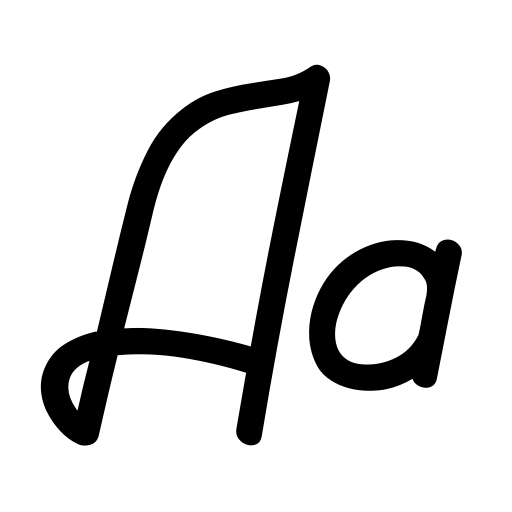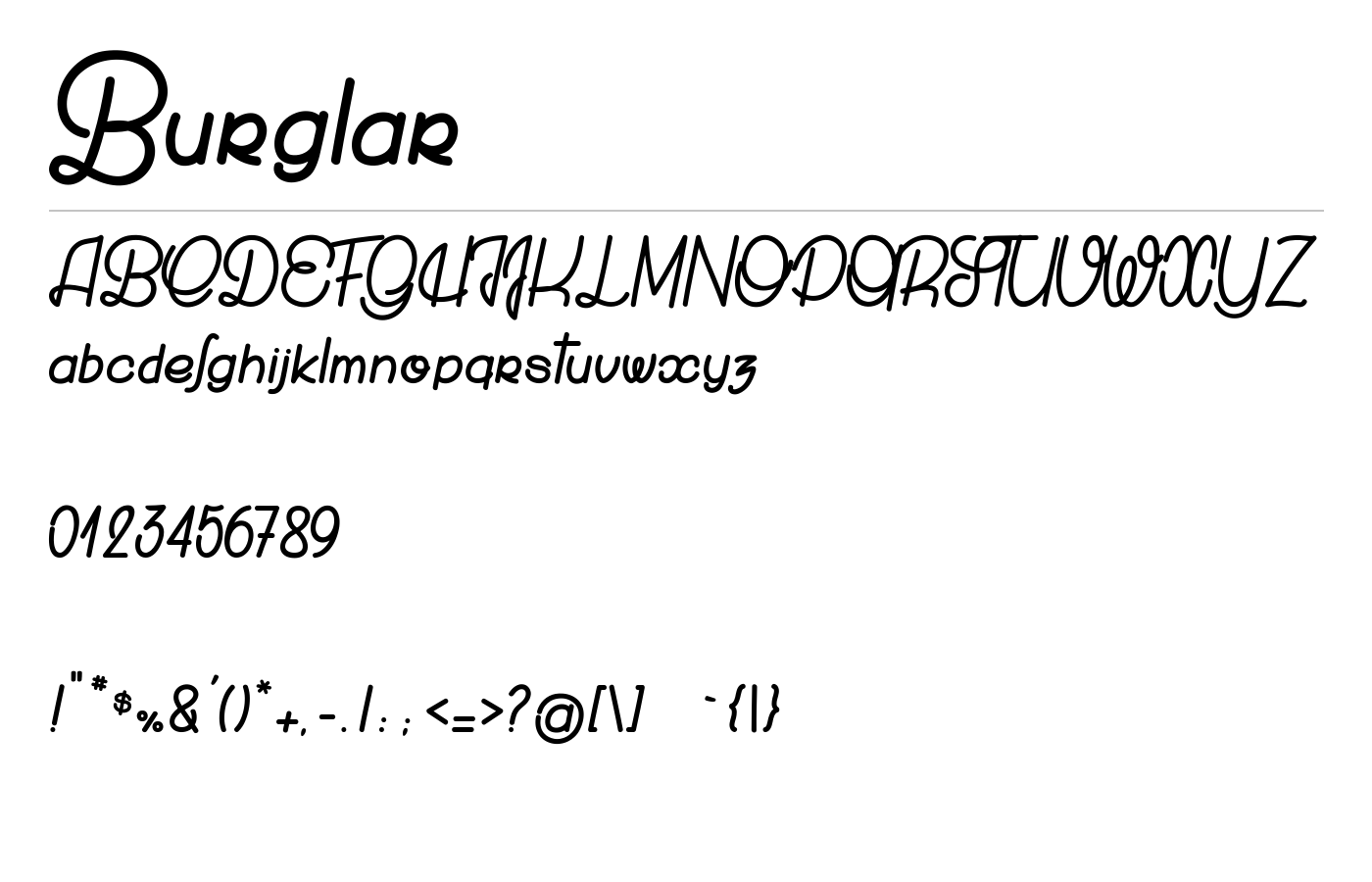
Burglar is a playful and casual script font with a handwritten charm, featuring smooth, slightly slanted strokes and a consistent medium weight. Its rounded letterforms and quirky character details create an inviting and friendly mood, making it ideal for creative projects, informal branding, and fun packaging. This font works well in headlines or logos where a warm, approachable, and personalized feel is desired.
Burglar Font
About Burglar Font
| Font family | Burglar Font |
| Designer | dcoxy Medina Gregory |